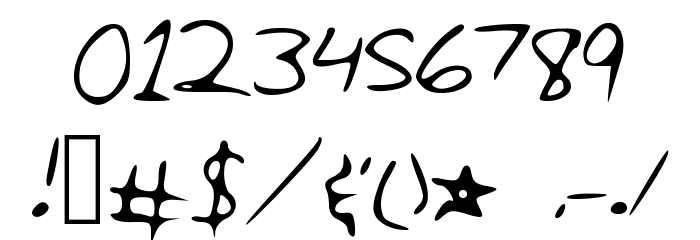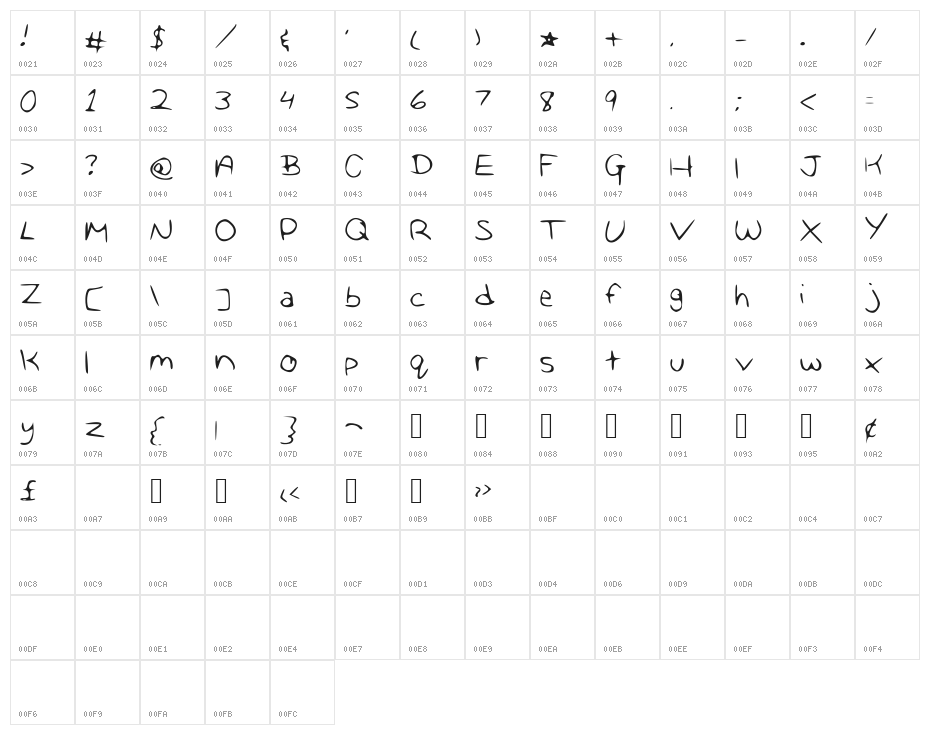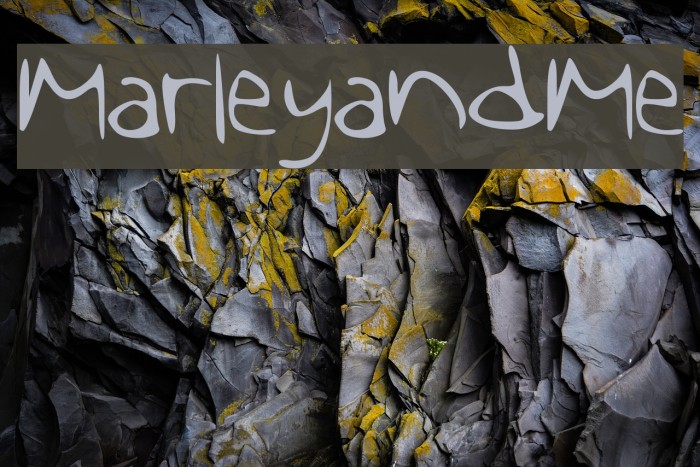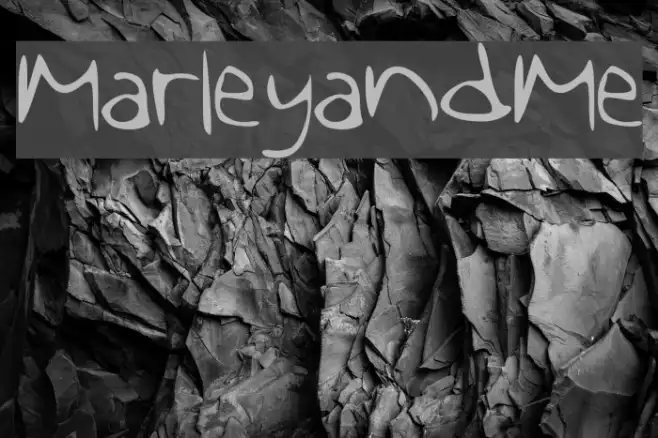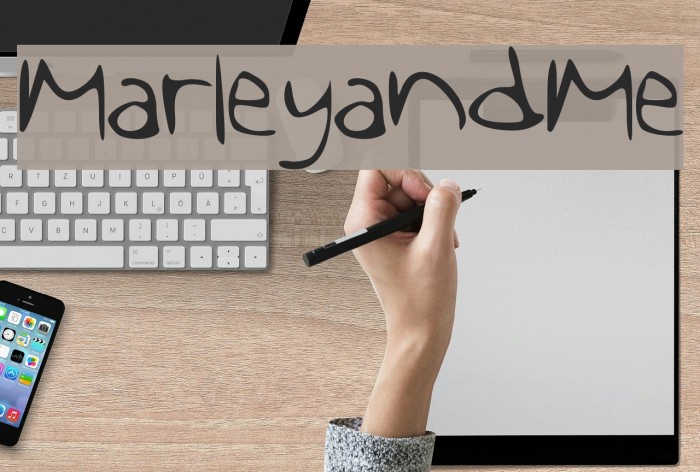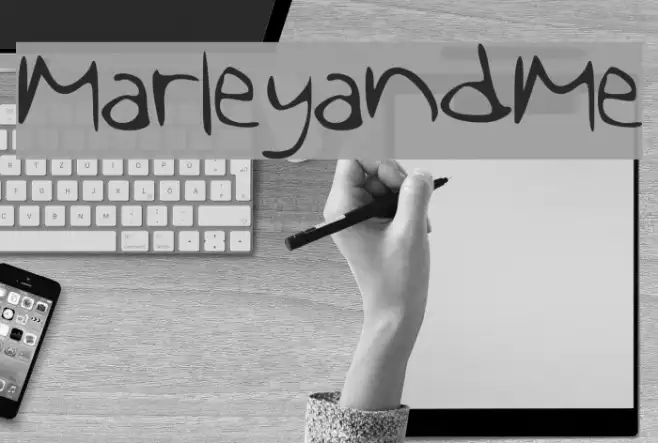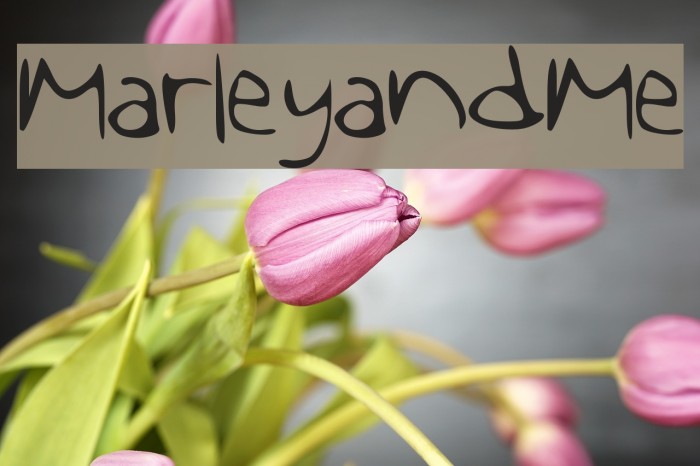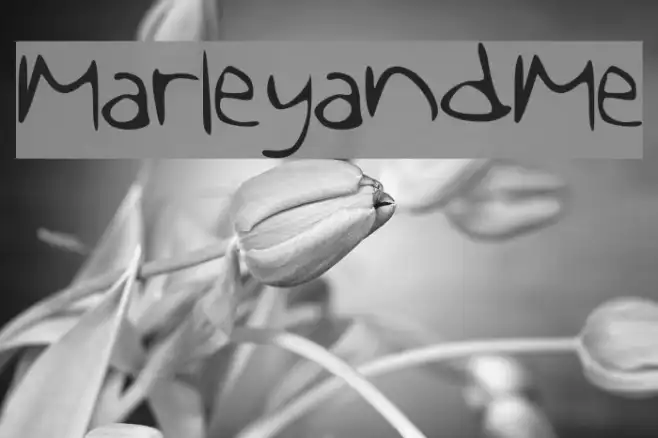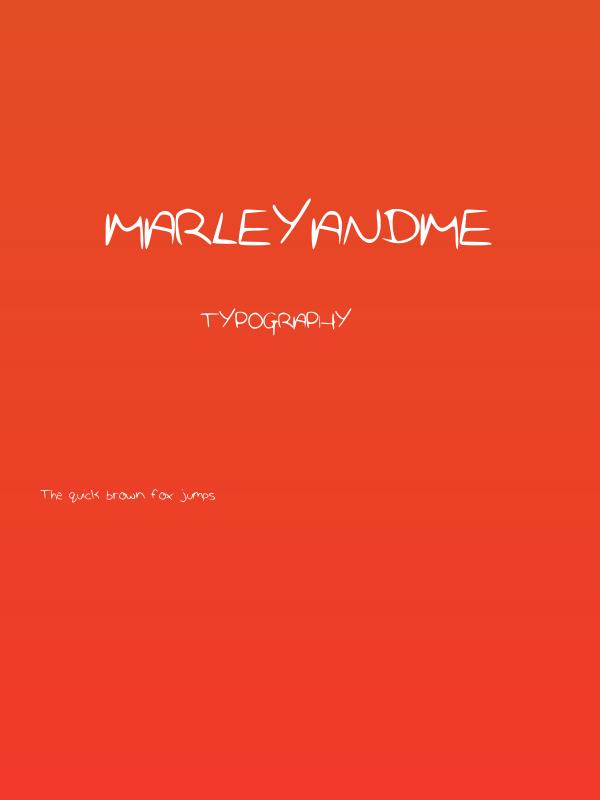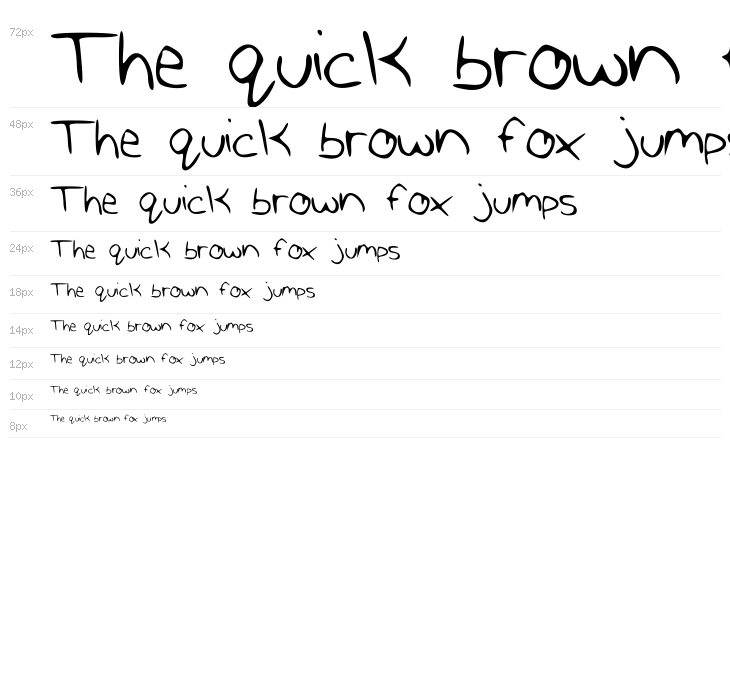
MarleyandMe Font
MarleyandMe Description
This font exhibits a playful and casual handwritten style, characterized by its fluid and organic letterforms. The strokes are uneven, giving it a lively and dynamic appearance. Each character has a unique flair, with varying stroke thickness that adds to its informal charm. The uppercase letters are bold and prominent, while the lowercase letters maintain a consistent flow, enhancing readability. The numerals and special characters are crafted with the same whimsical touch, making them blend seamlessly with the alphabet. This font is perfect for projects that require a personal and approachable feel.